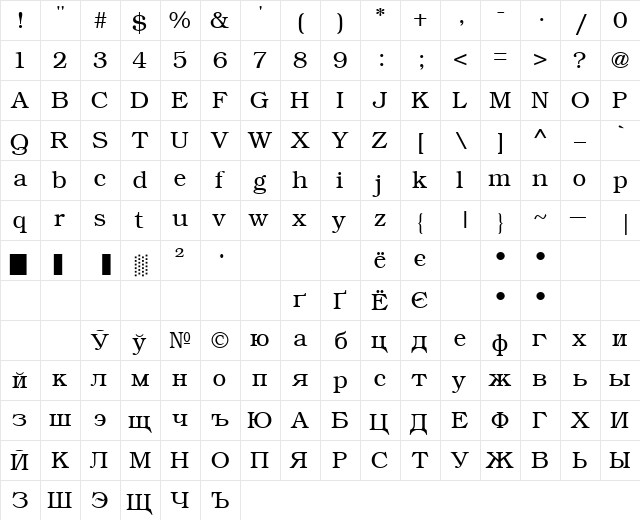
ER Bukinist KOI-8 Normal
Design Context for ER Bukinist KOI-8 Typeface
ER Bukinist KOI-8 offers clean, dependable letterforms without strong stylistic allegiance, making it a practical choice for designers who need flexibility.